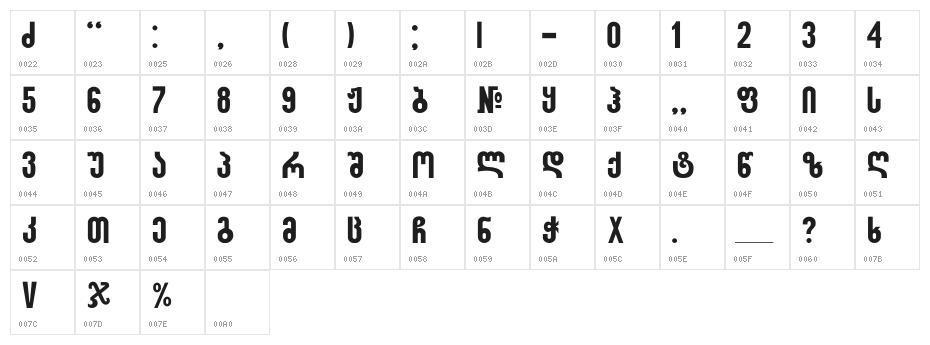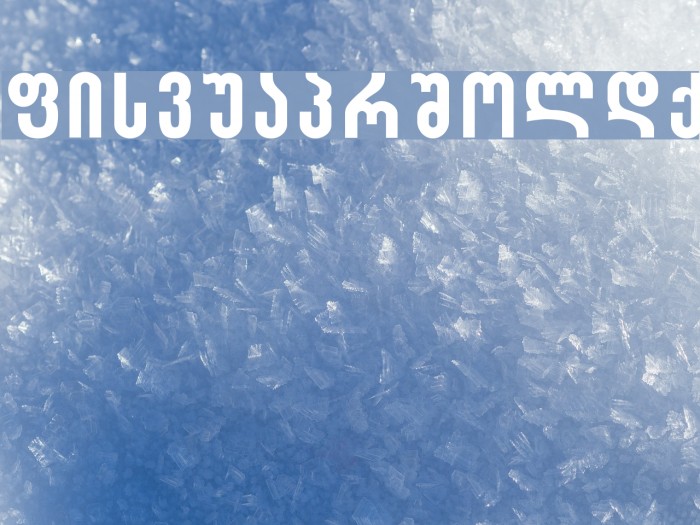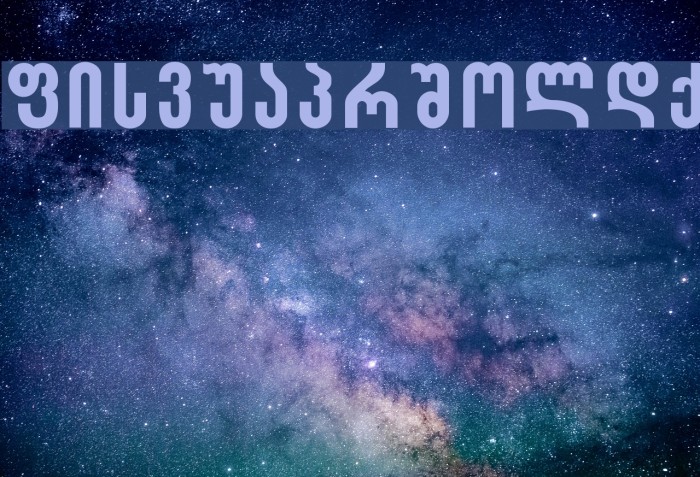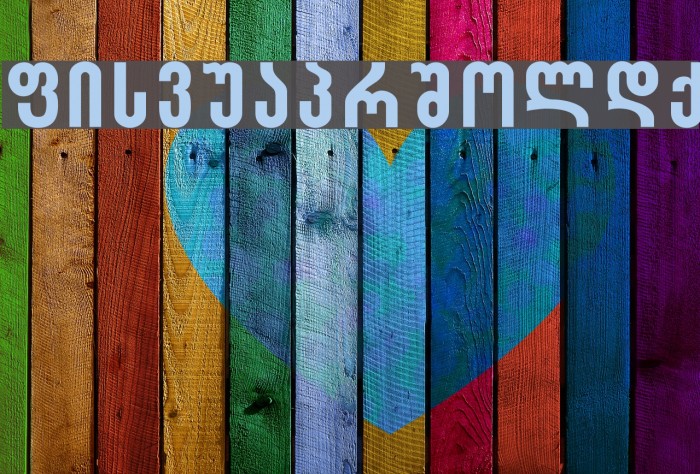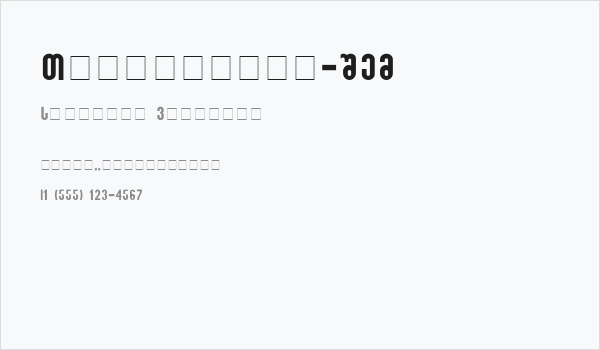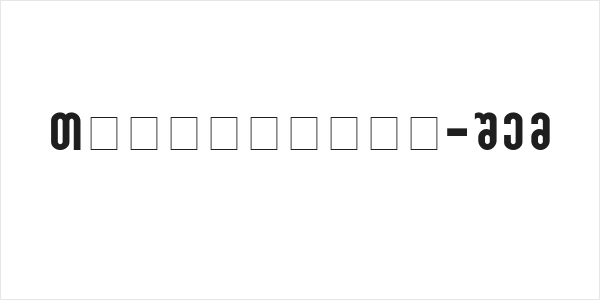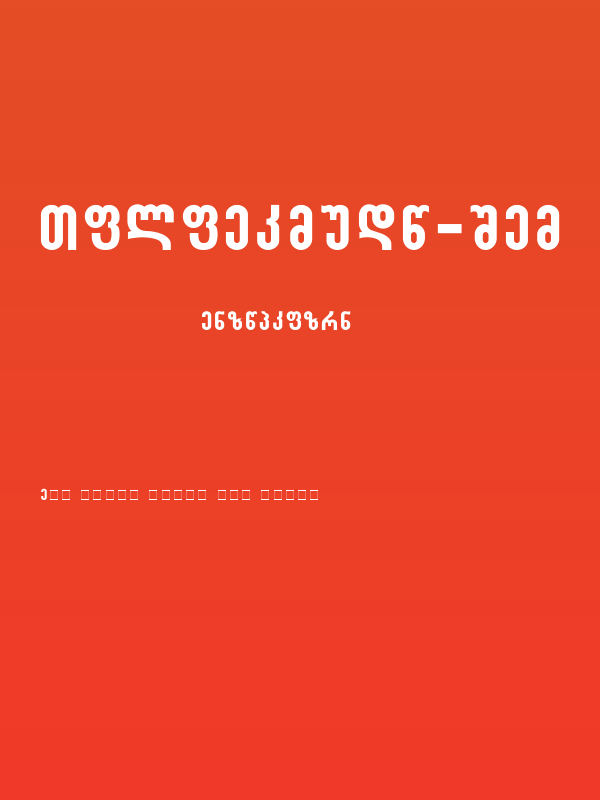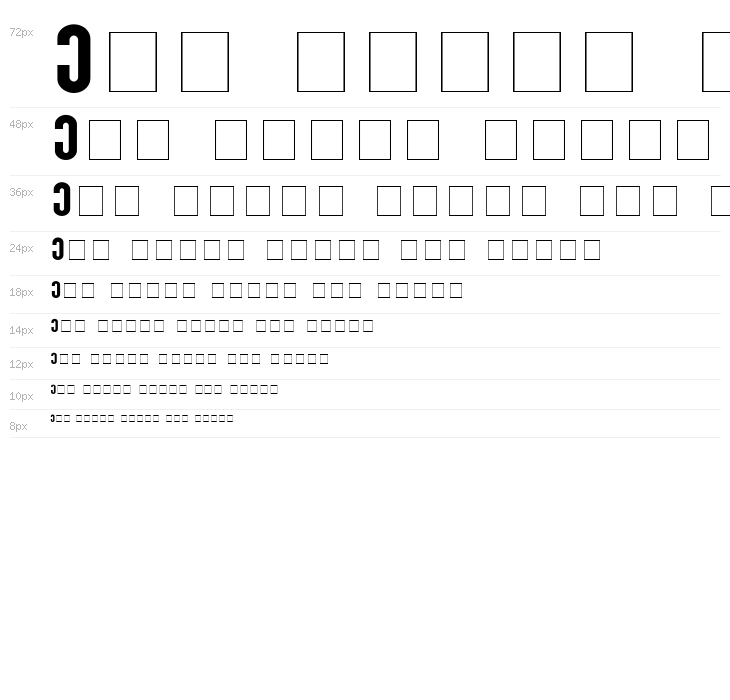
Sakatrvelo-ITV Font
Sakatrvelo-ITV Description
This font features a bold and modern design with strong geometric shapes and clean lines. The characters are well-defined with a consistent stroke width, giving it a robust and impactful appearance. The numerals are clear and easy to read, making them suitable for various applications. The overall style is contemporary, with a slight nod to traditional serif elements, providing a unique blend of modernity and classicism. The font's structure is balanced, ensuring legibility across different sizes and contexts.
| Proposed Projects | Ideal for branding, headlines, posters, and digital media where a strong visual impact is desired. |